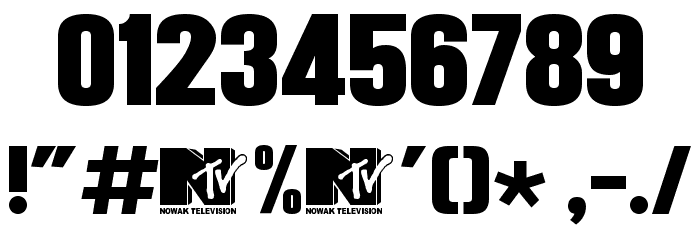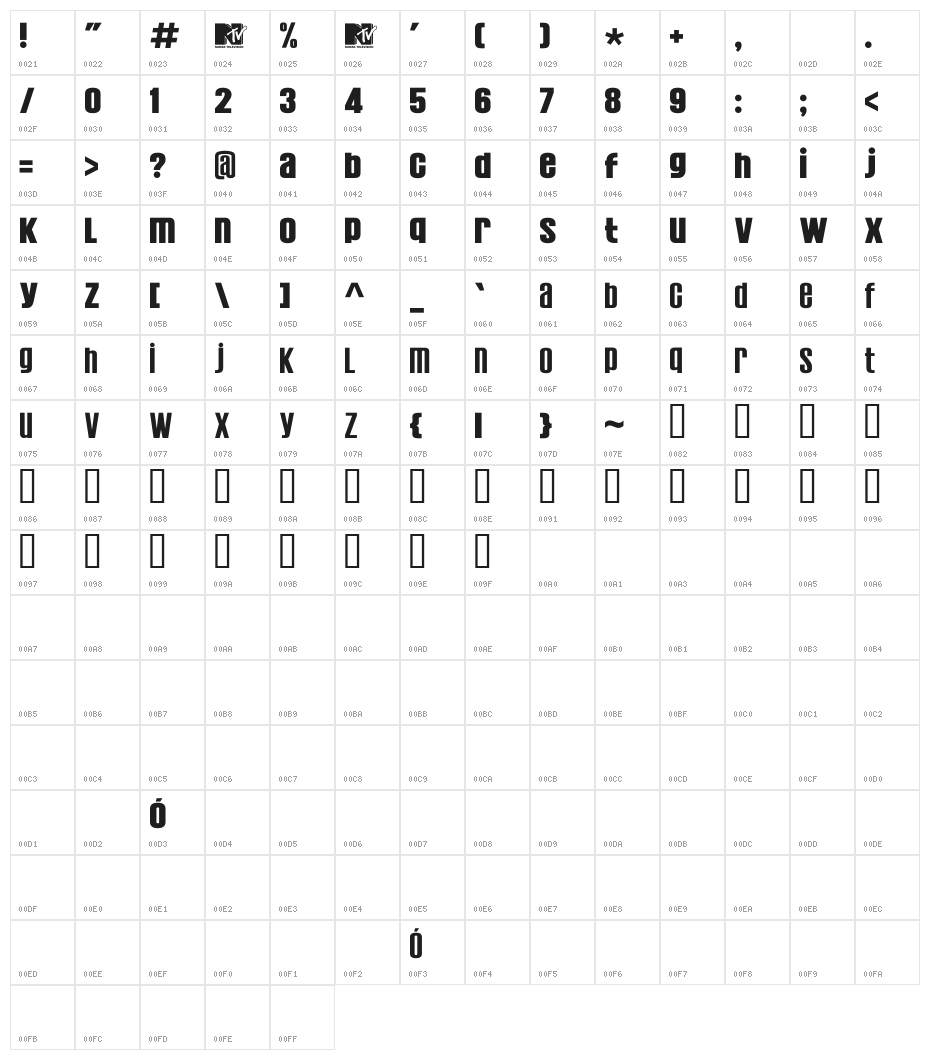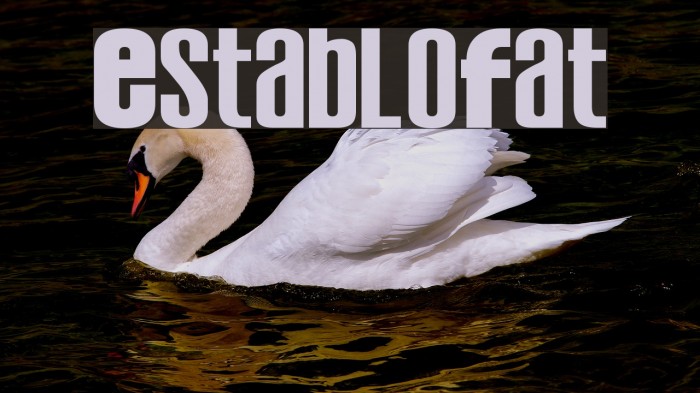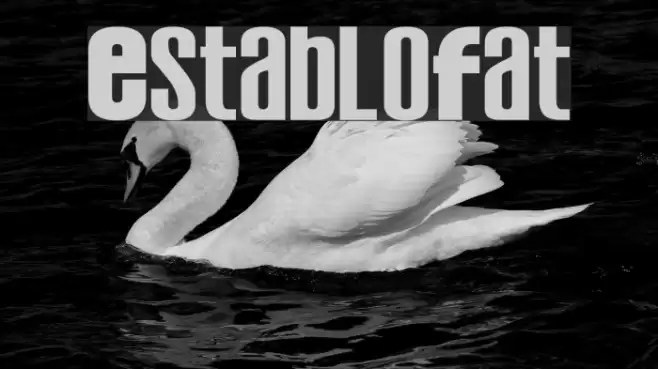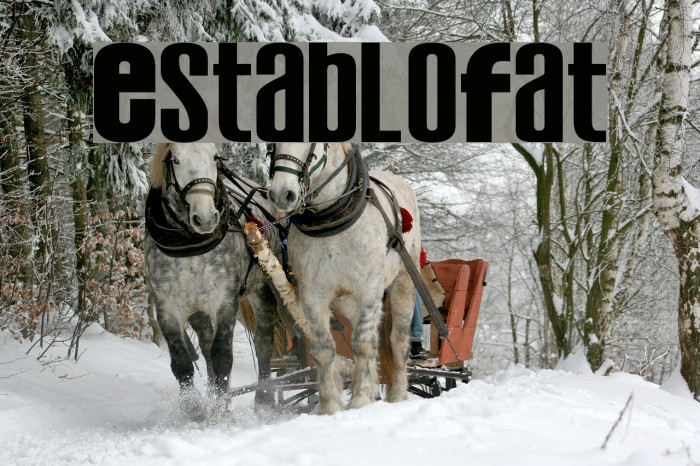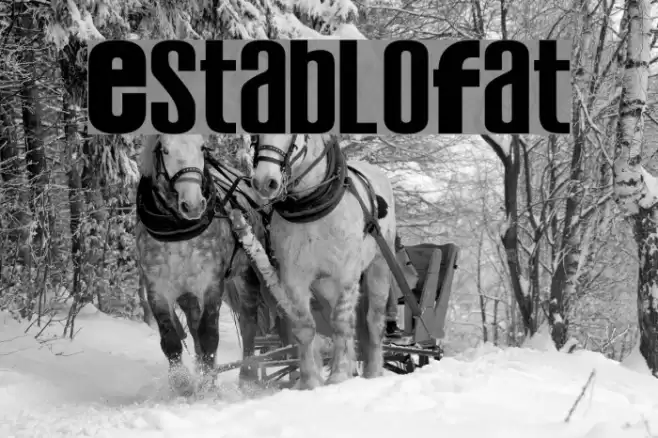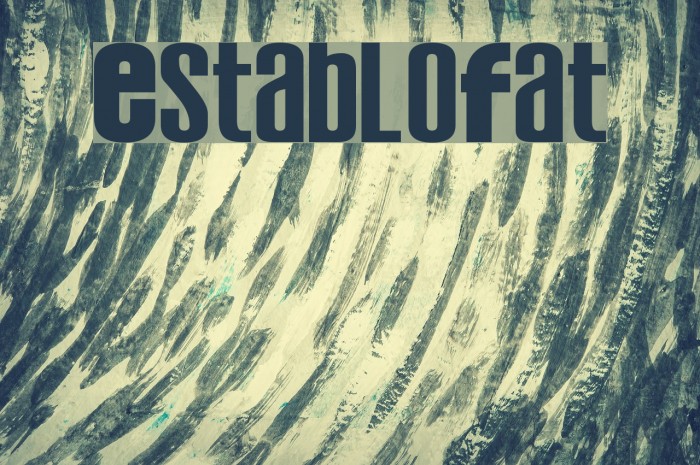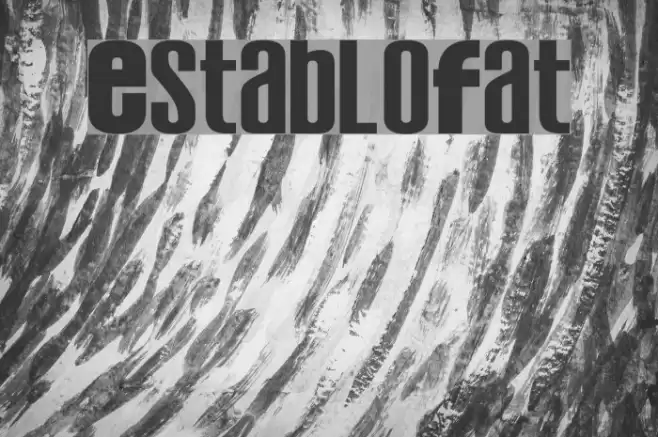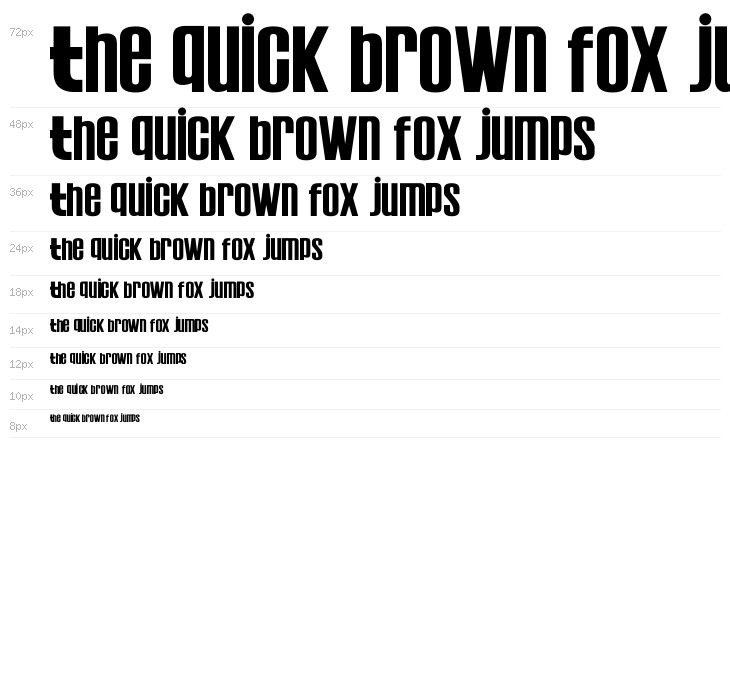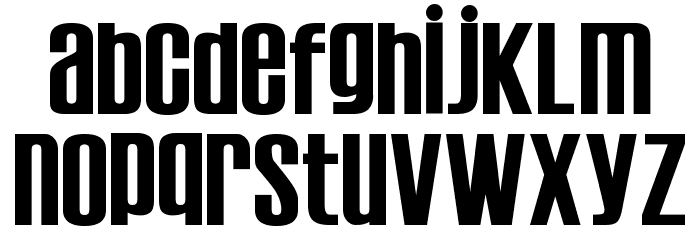
EstabloFat Font
EstabloFat Description
This font features a bold and impactful design with thick, uniform strokes that create a strong visual presence. The characters are tightly spaced, contributing to its compact and robust appearance. The uppercase and lowercase letters maintain a consistent height, enhancing readability while preserving a sense of uniformity. The numerals are equally bold, ensuring they stand out in any context. Special characters are designed with the same boldness, making them suitable for attention-grabbing headlines or logos. The overall style is modern and assertive, ideal for projects that require a commanding and memorable typeface.